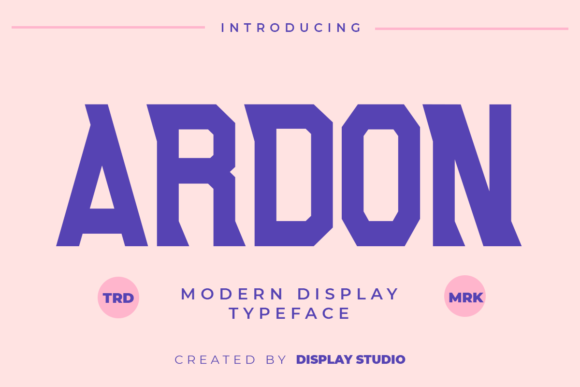
The Ardon Font: A Bold and Authentic Display Font for Your Creative Projects
I’ll never forget the time I was working on a logo design project for a new sports brand. I had a clear vision of what I wanted to create, but I was struggling to find the perfect font to match their bold and energetic vibe. That’s when I stumbled upon the Ardon font, and it instantly clicked. The bold and authentic display font was exactly what I needed to bring the brand to life.
An Honest Review of Ardon Font
- ✨ **Bold and eye-catching**: Ardon font is perfect for making a statement with your designs.
- ✅ **Highly versatile**: It can be used for a wide range of projects, from logos and t-shirt printing to sporting designs and more.
- 💥 **Attention-grabbing**: The font’s bold and authentic style is sure to grab attention and leave a lasting impression.
While Ardon font is an excellent choice for many projects, there are a few things to keep in mind:
- 🤔 **Limited use for body text**: Due to its bold style, Ardon font may not be the best choice for large blocks of body text.
- ⚠️ **Careful with pairing**: As with any bold font, it’s essential to choose a complementary font for pairing to avoid visual overload.
The Story Behind Ardon Font
Ardon font was designed with the goal of creating a bold and authentic display font that would make a statement. The designer aimed to craft a font that would be highly versatile and suitable for a wide range of projects. While the exact inspiration behind Ardon font is unclear, it’s evident that the designer drew from a range of influences to create a unique and eye-catching font.
| Font Name | Ardon Font |
| Author | DisplayStudio_ |
Q: What is Ardon font best used for?
Ardon font is best used for bold and eye-catching designs, such as logos, t-shirt printing, sporting designs, and more.
Q: Can I use Ardon font for body text?
While Ardon font can be used for body text, it’s not the most ideal choice due to its bold style. It’s better suited for headlines, titles, and emphasis.
Q: Is Ardon font suitable for digital use?
Yes, Ardon font is suitable for digital use and can be used for a range of digital projects, from social media graphics to website headers.